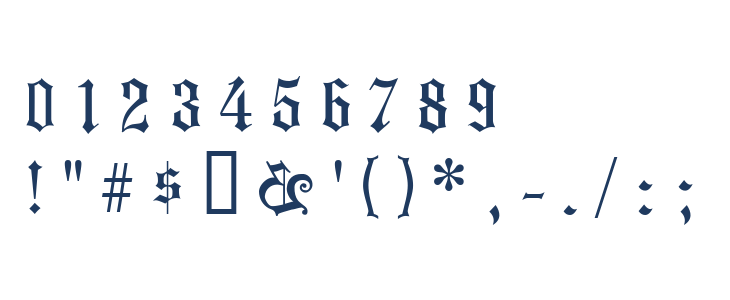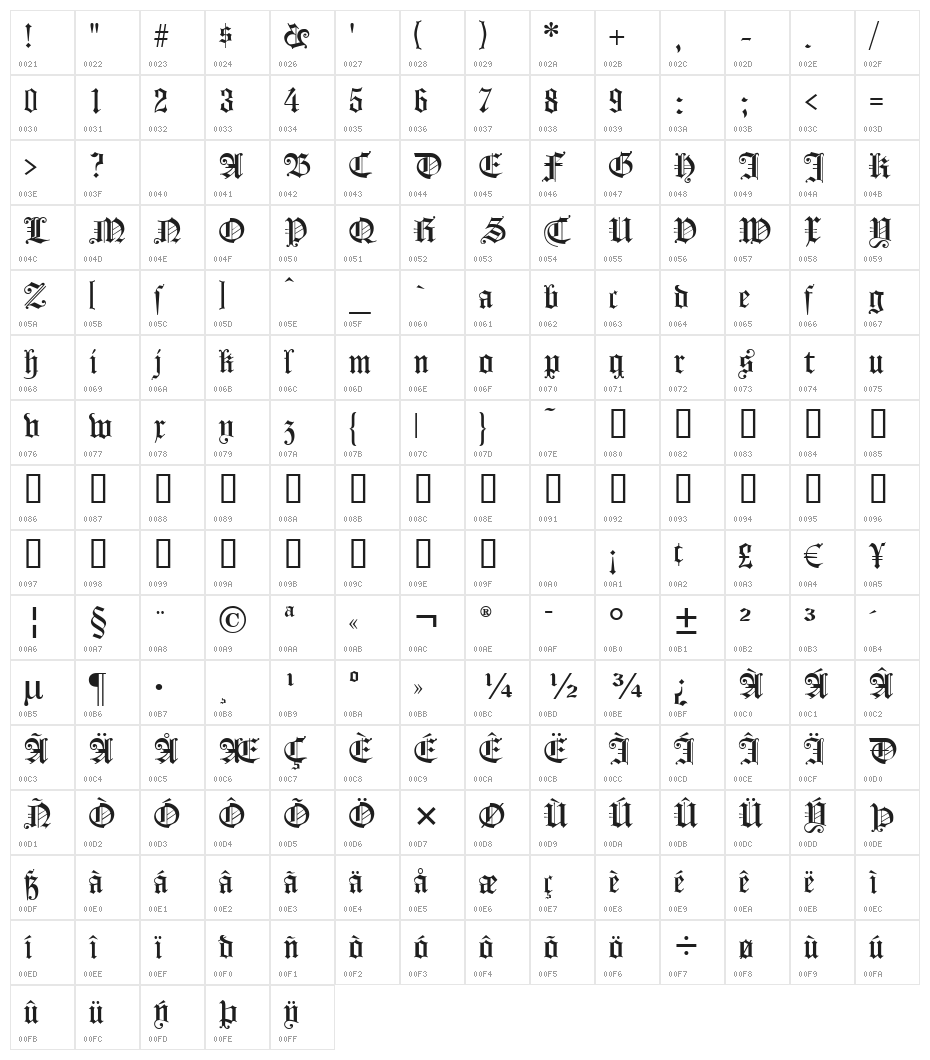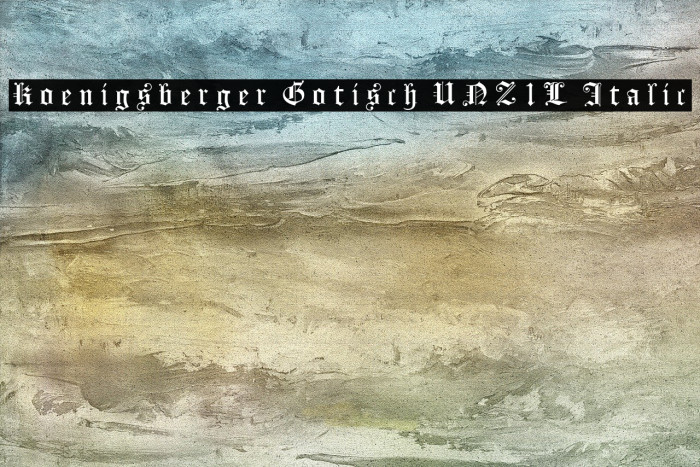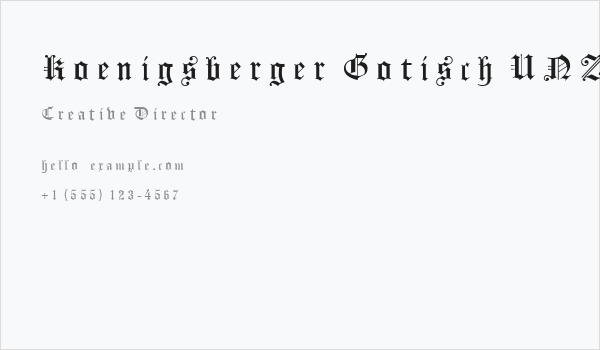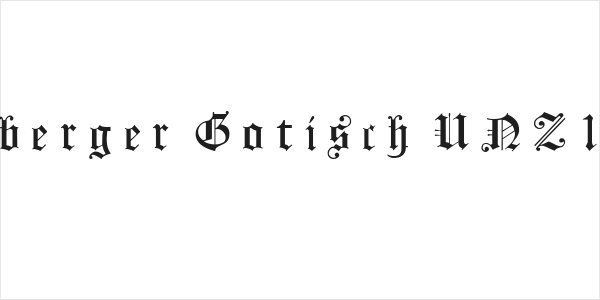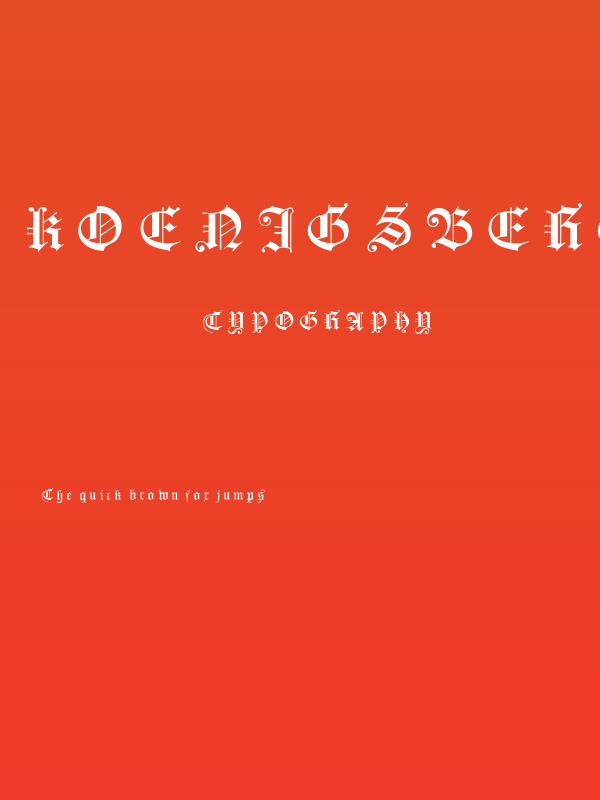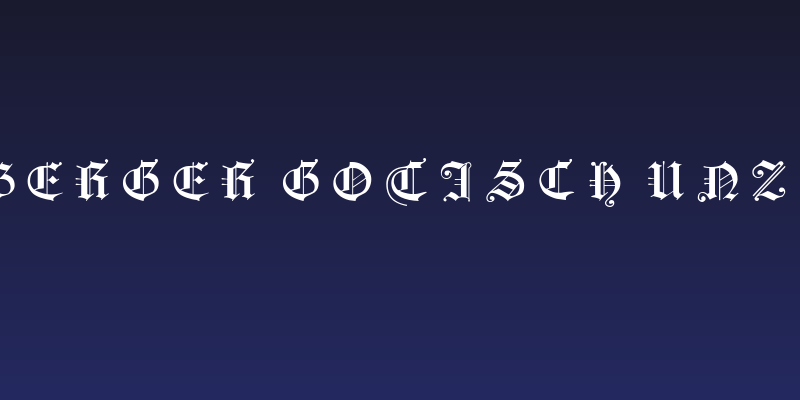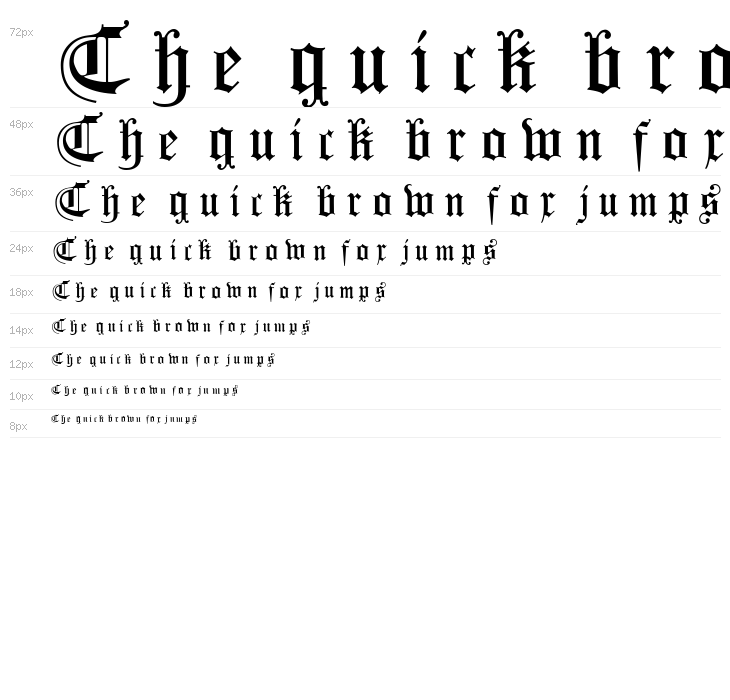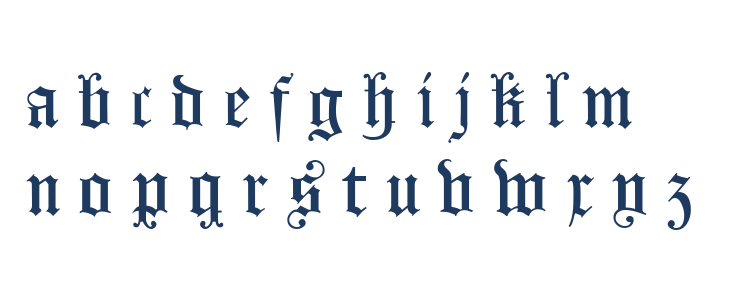
Koenigsberger Gotisch UNZ1L Italic Font
Koenigsberger Gotisch UNZ1L Italic Description
This font embodies the traditional elegance and intricate detailing of Blackletter typography. Each character is meticulously crafted with sharp, angular lines and ornate flourishes, reflecting a historical and gothic aesthetic. The uppercase letters are particularly elaborate, featuring decorative elements that enhance their visual impact. The lowercase letters maintain a consistent style, with a slightly more subdued ornamentation. Numbers and special characters are designed to complement the overall theme, ensuring a cohesive appearance across all text. This font is ideal for projects that require a touch of antiquity and sophistication.
Overall StyleVintage
Use CaseHeadlines, Logos, Decorative text
Proposed ProjectsSuitable for historical documents, certificates, book covers, and branding that requires a vintage or gothic touch.